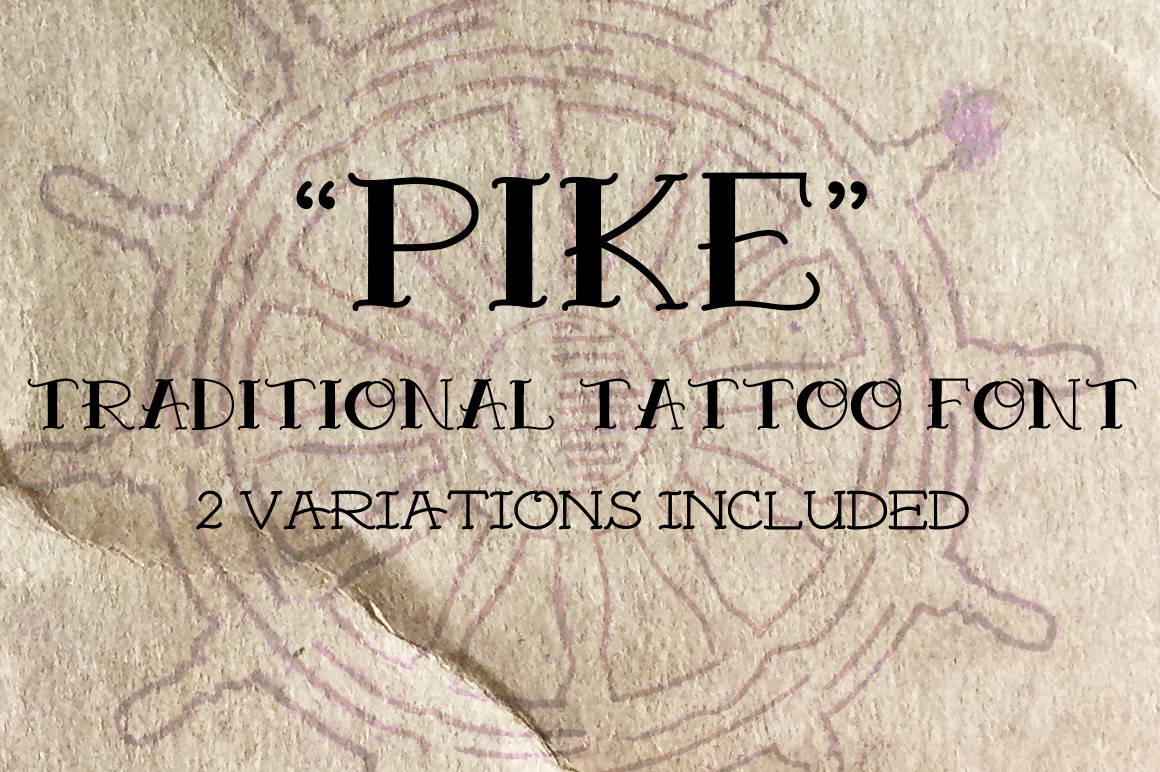
Pike Traditional Tattoo Font
Classic double line traditional tattoo font in two variations. Included in this package are two variations: a black version and an open version suitable for tattooing. This style font has been used in tattooing all the way back to the early 1900's (and probably further still). this is probably the most recognized tattoo lettering that there is, there have been many versions done out there but this is the one i learned to draw in my apprenticeship to become a tattooer so I will be brave and say this is the only "correct" version you can get your hands on.